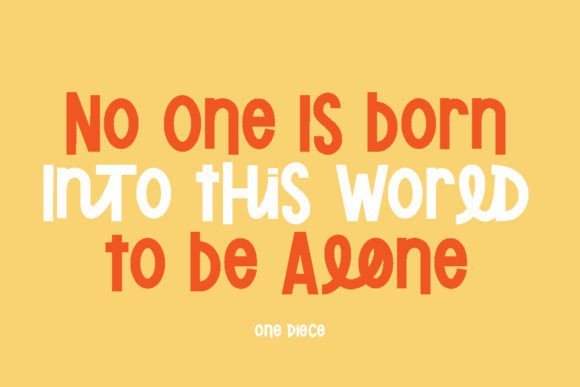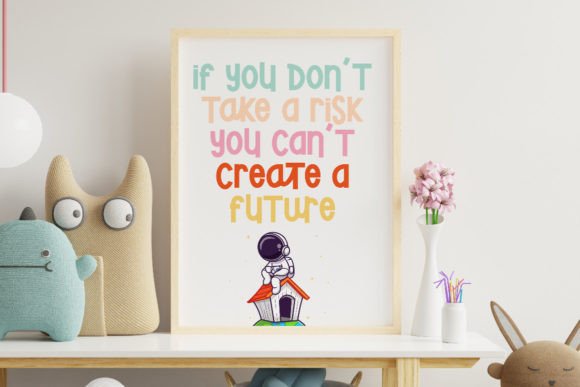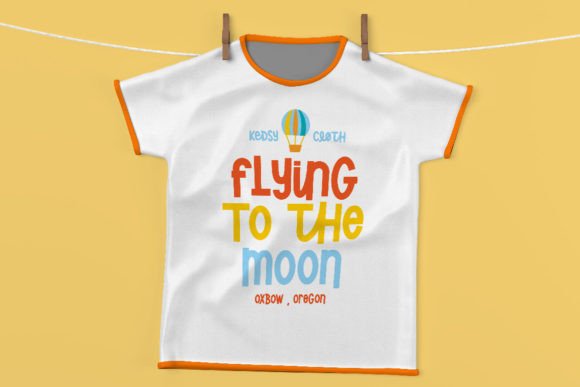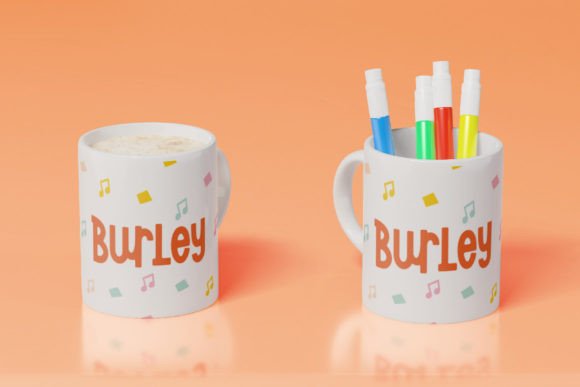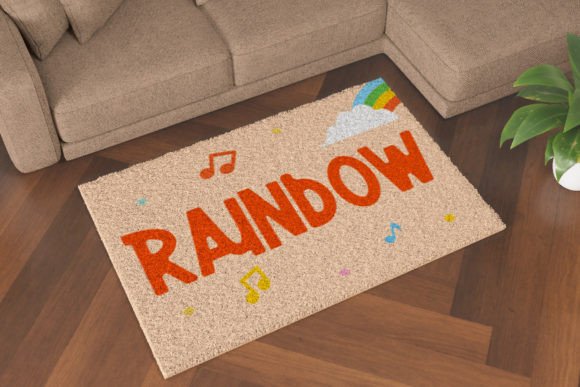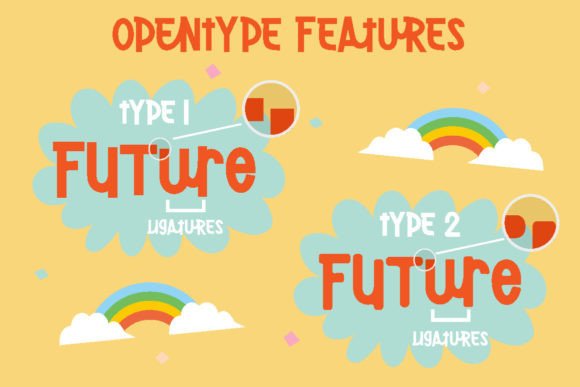
Introducing Burges Elbow: The Playful Font to Bring Joy to Your Designs
Are you tired of using the same old fonts in your designs? Do you want to add a touch of playfulness and whimsy to your projects? Look no further than Burges Elbow, a fun and quirky font designed to bring happiness and joy to any design. In this article, we’ll take a closer look at Burges Elbow, its features, and how you can use it to take your designs to the next level.
What is Burges Elbow?
Burges Elbow is a playful font created with the idea of bringing happiness and joy to any project. It comes in two stylish styles, making it a versatile font that can be used in a variety of designs. The font is perfect for designers who want to add a touch of fun and whimsy to their work, making it ideal for designs aimed at children, such as book covers, posters, and flyers.
Key Features of Burges Elbow
So, what makes Burges Elbow so special? Here are some of its key features:
- Playful and Quirky Nature: Burges Elbow has a playful and quirky nature that makes it perfect for designs aimed at a younger audience.
- PUA Encoded: The font is PUA encoded, which means you can access all of the amazing glyphs and ligatures with ease.
- Two Stylish Styles: Burges Elbow comes in two stylish styles, giving you flexibility and variety in your designs.
Who is Burges Elbow for?
Burges Elbow is perfect for designers who want to add a touch of playfulness to their designs. It’s ideal for:
- Children’s Book Covers: The font’s playful nature makes it perfect for children’s book covers, adding a touch of fun and whimsy to your design.
- Posters and Flyers: Burges Elbow is also great for posters and flyers aimed at a younger audience, such as advertising for kids’ events or activities.
- Branding for Kids’ Products: The font’s playful nature makes it perfect for branding aimed at kids, such as toys, games, or clothing.
How to Use Burges Elbow
Using Burges Elbow is easy! Here are some tips to get you started:
- Experiment with Different Sizes: Burges Elbow looks great in a variety of sizes, so don’t be afraid to experiment and find the perfect size for your design.
- Pair it with Other Fonts: Burges Elbow pairs well with other fonts, so try pairing it with a serif font for a fun and contrasting look.
- Use it for Headings and Titles: Burges Elbow is perfect for headings and titles, adding a touch of playfulness and whimsy to your design.
In conclusion, Burges Elbow is a playful font that’s perfect for designers who want to add a touch of fun and whimsy to their designs. With its quirky nature, PUA encoding, and two stylish styles, it’s ideal for designs aimed at children, such as book covers, posters, and flyers. So why not give Burges Elbow a try and see how it can bring happiness and joy to your designs?